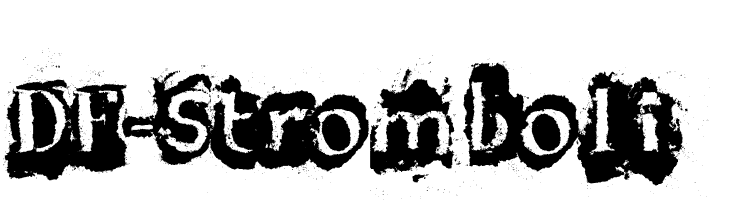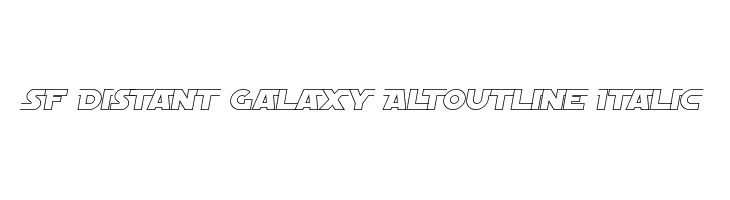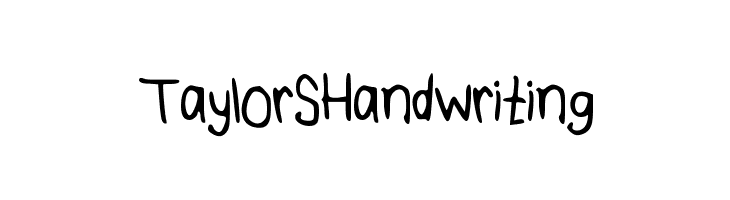
A futuristic, bold font with rounded, geometric letterforms and low contrast.
A playful, whimsical font with tall, narrow letters and decorative loops.
A bold, italicized font with a futuristic shadow effect.
A decorative font composed of small dots, creating a retro and playful appearance.
A pixelated, blocky font with a retro digital aesthetic.
A modern, distressed font with a clean yet edgy appearance.
A bold, decorative font with Celtic-inspired letterforms and intricate serifs.
A playful, handwritten font with tall, narrow letters and a casual style.
A bold, geometric font with a modern and futuristic style.
A bold, distressed font with a hand-drawn, grunge aesthetic.